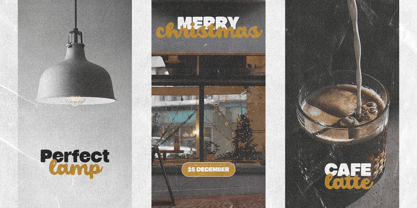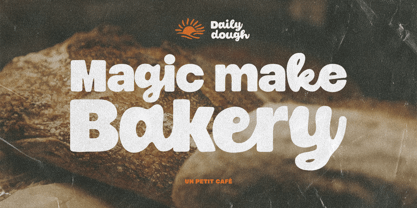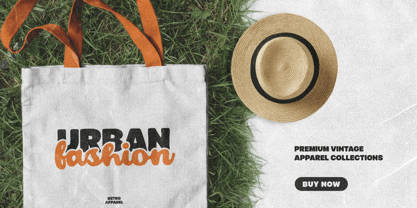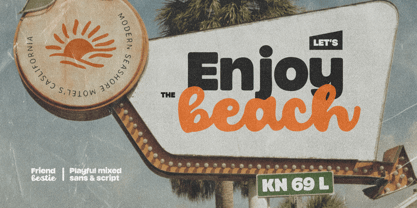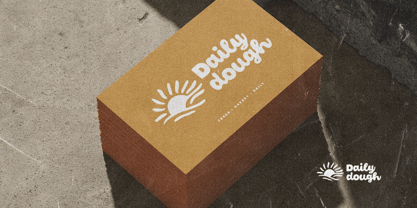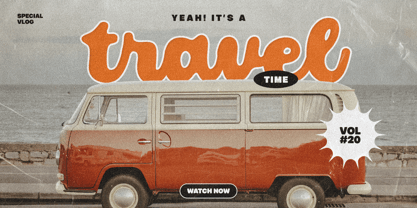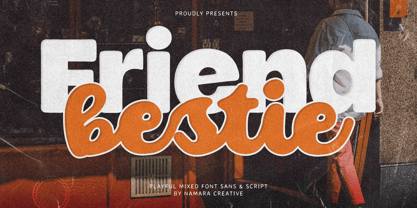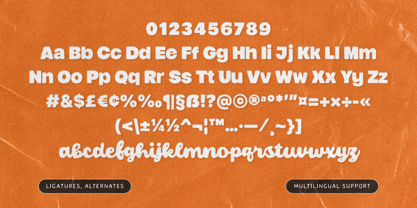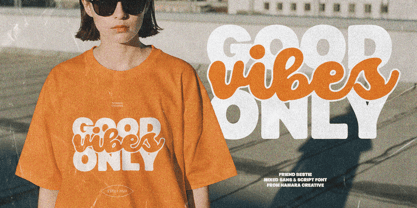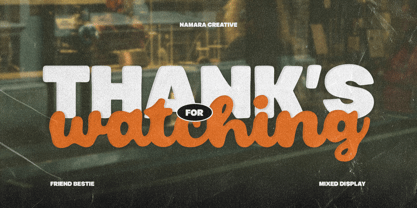
Friend Bestie
by Namara Creative Studio
The Friend Bestie Font Family was designed by Toni Setiawan and published by Namara Creative Studio. Friend Bestie contains 2 styles and family package options. More about this family
Meet Friend Bestie — a playful mixed-style font that pairs a chunky rounded sans-serif with a lively flowing script, all in one cohesive font family. It’s the kind of typeface that makes your design feel like it was always meant to look exactly that good.
• Branding & Logos
• Apparel & Merchandise
• Packaging & Labels
• Social Media Content & YouTube Thumbnails
• Playful Mixed Font (Bold Rounded Display and Bubbly Connected Script).
• Full Set Uppercase, Lowercase, Numerals and Punctuations.
• Ligatures, Alternates and Multilingual Support.
Designed by Namara Creative, Friend Bestie was built to carry that signature retro-meets-modern energy, bold enough to command attention, expressive enough to feel human, and versatile enough to work across a wide range of creative projects.